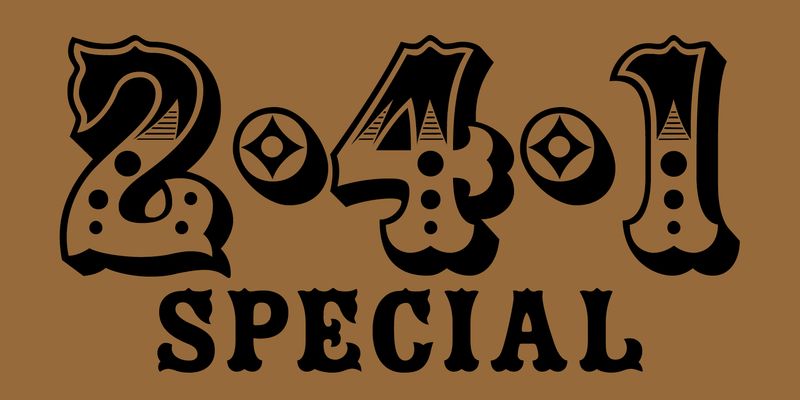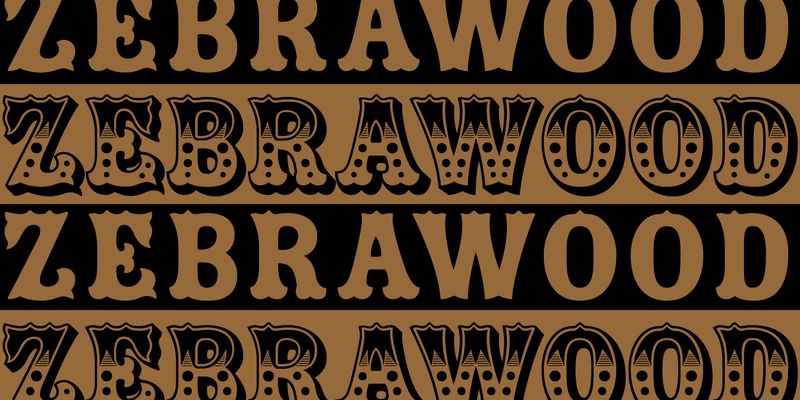
Of the many nineteenth-century wood type designs, the most popular seem to be variations of the Antique Tuscan style, which featured scalloped contours and upturned, pointed serifs. Designers of wood type found the Tuscan style to be ideal for embellishment, shading, and decoration. Adobe’s Zebrawood evolved from letters first seen in a specimen catalogue from the 1854 Wells and Webb Type Company. Zebrawood has a solid upper half, open lower half, graduated dots, and deep shadow; a style often used for circus posters and advertisements. Zebrawood, released in 1994, is a chromatic typeface (“chromatic” or multicolored typefaces were first created by carefully registering and overprinting two or sometimes three versions of each letter in different colors to produce a flamboyant appearance). Zebrawood has an alternate version of each letter which can be used for multiple color printing.